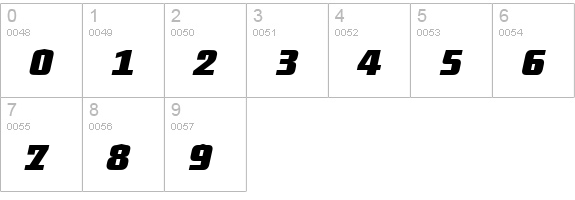
DistrictTF-BoldItalicAlt Font Details
DistrictTF-BoldItalicAlt font is a bold and dynamic typeface that exudes sophistication and strength. Its italicized style adds a touch of elegance and flair, making it perfect for projects that require a bold yet stylish look. This versatile font is suitable for a wide range of design applications, from branding to editorial design. What's even better is that DistrictTF-BoldItalicAlt font is available for free download at FontsMarket.com. This means you can easily access and use this stunning font in your projects without any cost. Don't miss out on this opportunity to enhance your designs with the striking DistrictTF-BoldItalicAlt font.